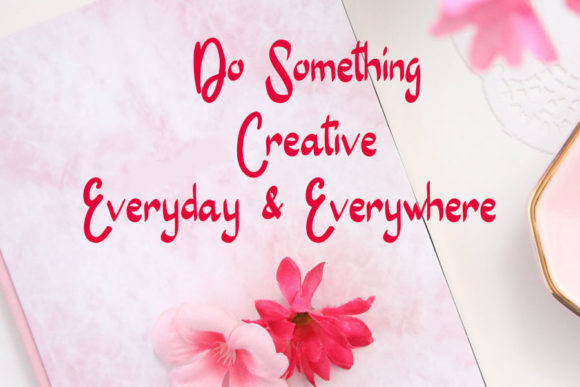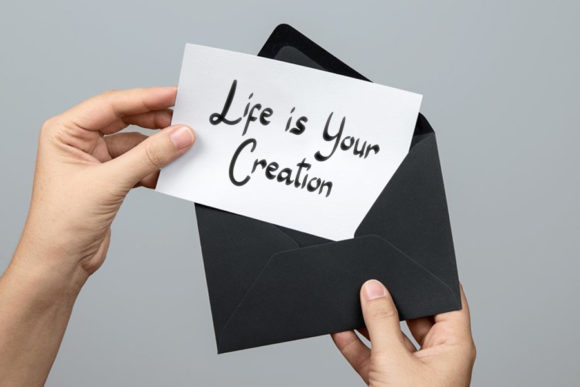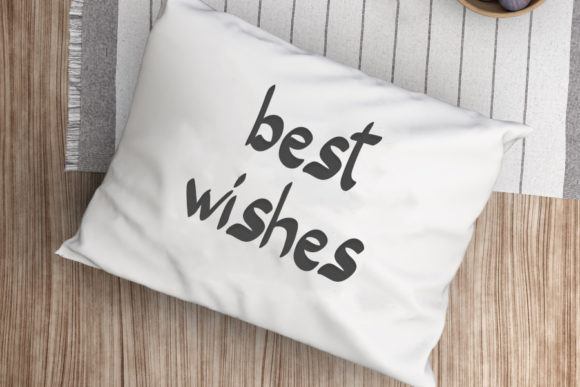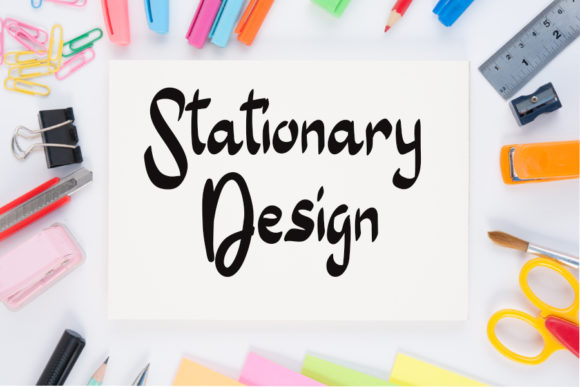
Introduction to Baby Giovanni Font
As a designer, have you ever found yourself stuck in a creative rut, searching for that perfect font to elevate your project and make it truly stand out? You know, that moment when you’re pouring your heart and soul into a design, and all it’s missing is that special something to tie it all together. That’s exactly where the Baby Giovanni Font comes in – a delicate and unique handwritten font that adds a touch of loveliness to any design project.
With its high-quality design and transparent background, the Baby Giovanni Font is a valuable resource for designers looking to add a personal touch to their creative projects. Whether you’re working on a branding campaign, a wedding invitation, or a social media graphic, this font is sure to turn heads. And the best part? It’s available for free download, making it an accessible design resource for creatives of all levels.
Key Features of Baby Giovanni Font
- High-quality design: The Baby Giovanni Font is a beautiful and elegant font, perfect for any creative project that requires a touch of sophistication.
- Transparent background: The font features a transparent background, allowing for easy customization and integration into any design.
- High-resolution design: The font is designed at a high resolution, ensuring that it looks crisp and clear on both small and large scales.
- Unique characteristics: The Baby Giovanni Font features a unique, cursive design that is perfect for adding a personal touch to any creative project.
Honest Review: Baby Giovanni Font
I recently came across the Baby Giovanni Font, a free download that caught my eye due to its unique, playful style. As a designer, I’m always on the lookout for high-quality design resources that can elevate my creative projects.
The font itself is a delightful addition to any project, with a transparent background that makes it easy to work with. Its rounded edges and soft curves evoke a sense of whimsy and fun, perfect for projects that require a lighthearted touch.
- Unique and playful design style
- High-quality, transparent background
- Perfect for creative projects that require a lighthearted touch
- May not be suitable for formal or professional projects
- Limited number of font styles available
Overall, I’m impressed with the Baby Giovanni Font. While it may have some limitations, its unique design style and high-quality construction make it a valuable addition to any designer’s toolkit. If you’re looking for a fun and playful font to add some personality to your creative projects, I’d definitely recommend giving it a try.
The Baby Giovanni Font is perfect for various creative projects, such as designing a logo, creating a social media graphic, or writing a blog post. Its high-quality design and transparent background make it a versatile design resource that can be used in a variety of contexts.